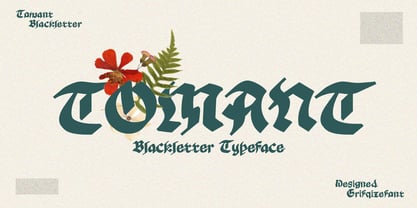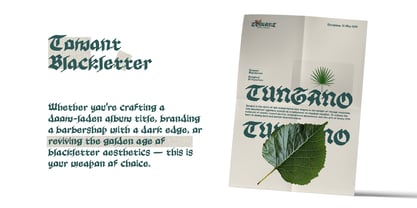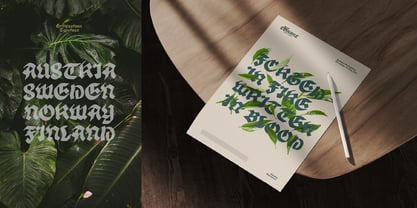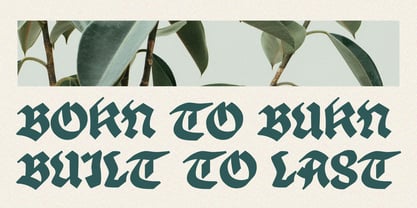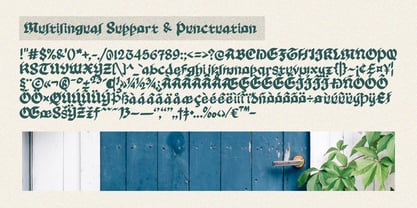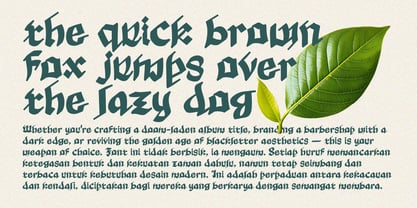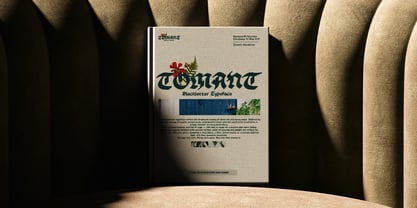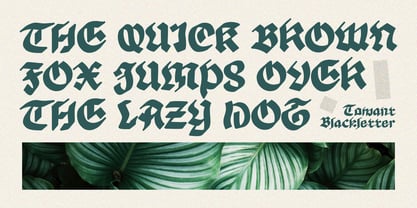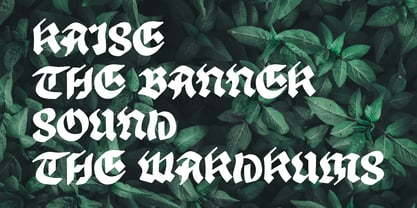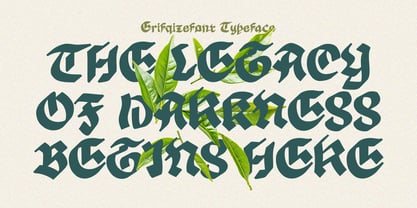
Tomant Blackletter
by Erifqizefont
Tomant Blackletter — Elegance in Darkness
Tomant Blackletter is a striking display typeface that blends the boldness of medieval letterforms with a touch of natural elegance. Designed by Erifqizefont, it brings together the sharp, angular presence of traditional blackletter with an unexpected softness — reflected through the floral accents featured in its presentation.
Each glyph is crafted with strong structure and classic rhythm, yet retains a sense of modern refinement. It’s the perfect typeface for projects that seek both drama and beauty — from vintage metal posters to contemporary gothic branding.
Tomant doesn’t just speak — it commands. It’s blackletter with soul, built for those who design with conviction.